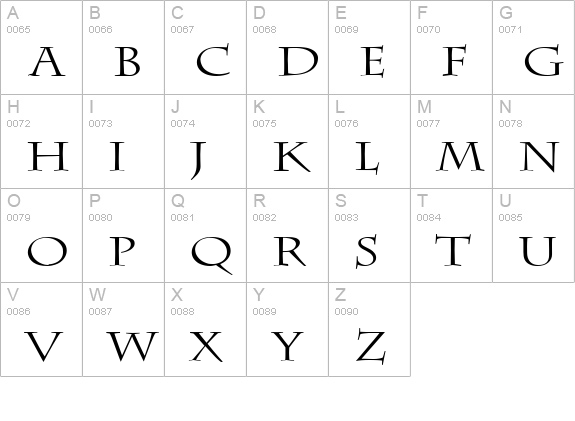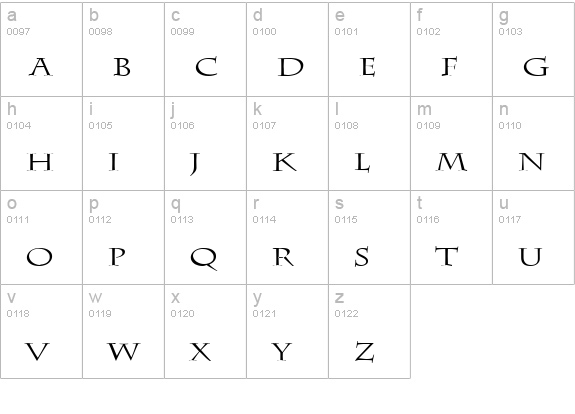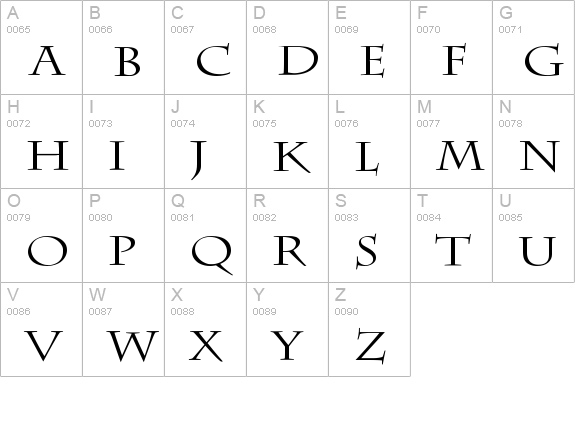
Chaz Wide Normal is the standard, neutral, extended-width variant in the Chaz typeface family \xE2\x80\x94 well suited to general body text, paragraphs, and standard typographic work.
Chaz Wide Normal font is a modern and versatile typeface that exudes sophistication and elegance. With its wide letterforms and clean lines, this font is perfect for a wide range of design projects, from branding to editorial design. The smooth curves and balanced spacing of Chaz Wide Normal make it easy to read and pleasing to the eye. What makes Chaz Wide Normal even more appealing is that it is available for free download at FontsMarket.com. This means that you can easily access this high-quality font and use it in your projects without any cost. Whether you're a professional designer or a hobbyist, Chaz Wide Normal is a fantastic addition to your font library. Don't miss out on the opportunity to enhance your designs with this stylish and contemporary typeface.